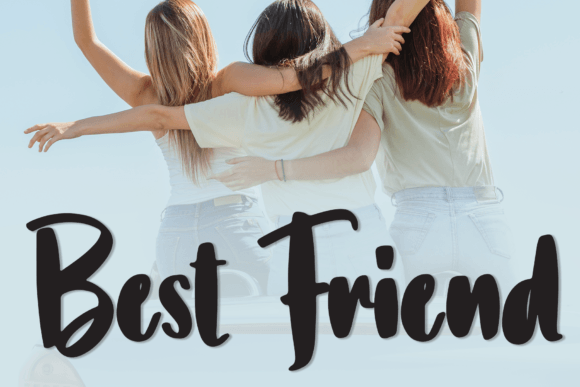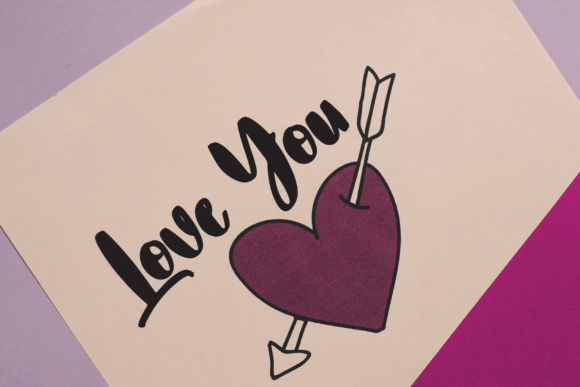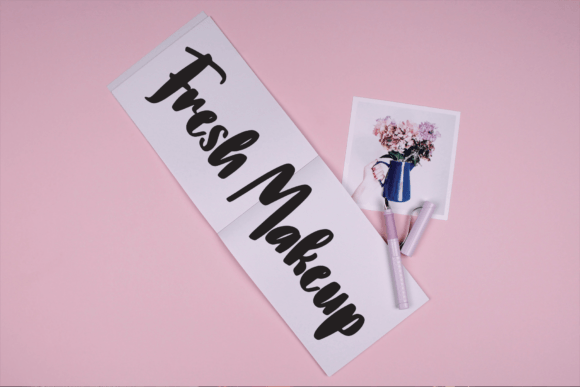
Introduction to Night Smile Font
Have you ever found yourself in the middle of a creative project, pouring over your design, trying to find that perfect touch to make it stand out? That’s where the Night Smile Font comes in – a fresh and neat handwritten font that adds a special something to any design.
As a designer, you know how valuable it is to have high-quality design resources at your fingertips. The Night Smile Font is a perfect addition to your collection, offering bold characters that can be used on a transparent background to give your design a unique and eye-catching look.
Whether you’re working on a new logo, brochure, or social media campaign, the Night Smile Font is a valuable design resource that’s sure to elevate your creative project and leave a lasting impression.
Key Features of Night Smile Font
- Unique, hand-drawn design with a minimalist touch, ideal for creative projects requiring a touch of elegance.
- Comes in a single font weight, with 4 different styles (Regular, Bold, Italic, and Bold Italic) for added versatility.
- Perfect for use in invitations, greeting cards, and other creative projects where a subtle, sophisticated design is required.
Honest Review: Night Smile Font
As a designer, I’ve had the pleasure of working with a wide range of fonts, but the Night Smile Font has truly stood out to me. I was initially drawn to its quirky, handwritten feel, which makes it perfect for creative projects that need a personal touch. The font’s high quality is evident in its smooth lines and consistent spacing, making it a great addition to any design resource.
What works well with the Night Smile Font is its versatility. I’ve used it for everything from wedding invitations to social media graphics, and it always adds a unique touch. The font also comes with a transparent background, which makes it easy to customize and integrate into any design. ✨
- Perfect for creative projects that need a personal touch
However, I do have to mention a few limitations. The font is only available in a few different weights, which can make it difficult to use in situations where a more subtle look is needed. Additionally, the font’s quirky feel may not be to everyone’s taste. ⚠️
Overall, I’m really impressed with the Night Smile Font, and I think it’s a valuable addition to any designer’s toolkit. Whether you’re working on a high-end design project or just need a unique touch for a social media graphic, this font is definitely worth checking out.
Tips for Getting the Most Out of Night Smile Font
To get the most out of the Night Smile Font, use it in creative ways, such as adding it to a transparent background or combining it with other design elements. You can also experiment with different font sizes and colors to create a unique look.
The Night Smile Font is perfect for designing logos, social media graphics, and other visual content that requires a stylish and modern look. It’s also a great resource for designers who want to add a touch of elegance to their creative projects.